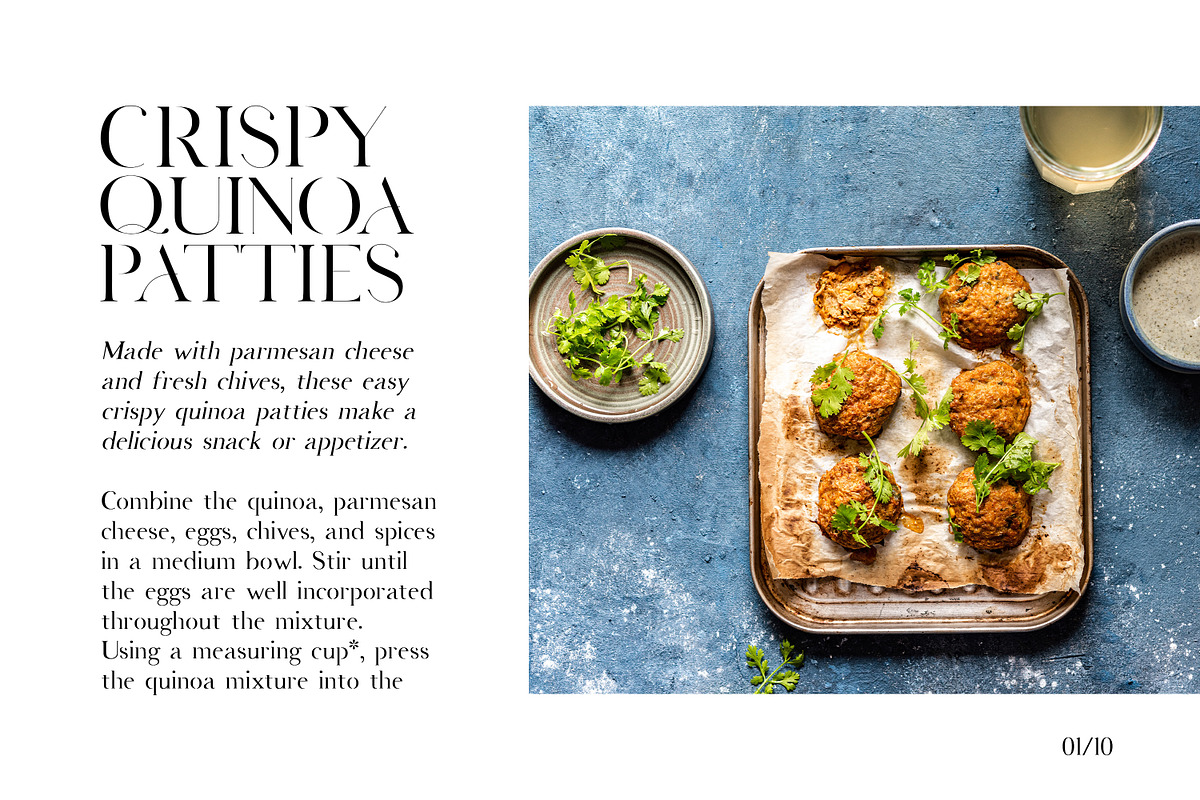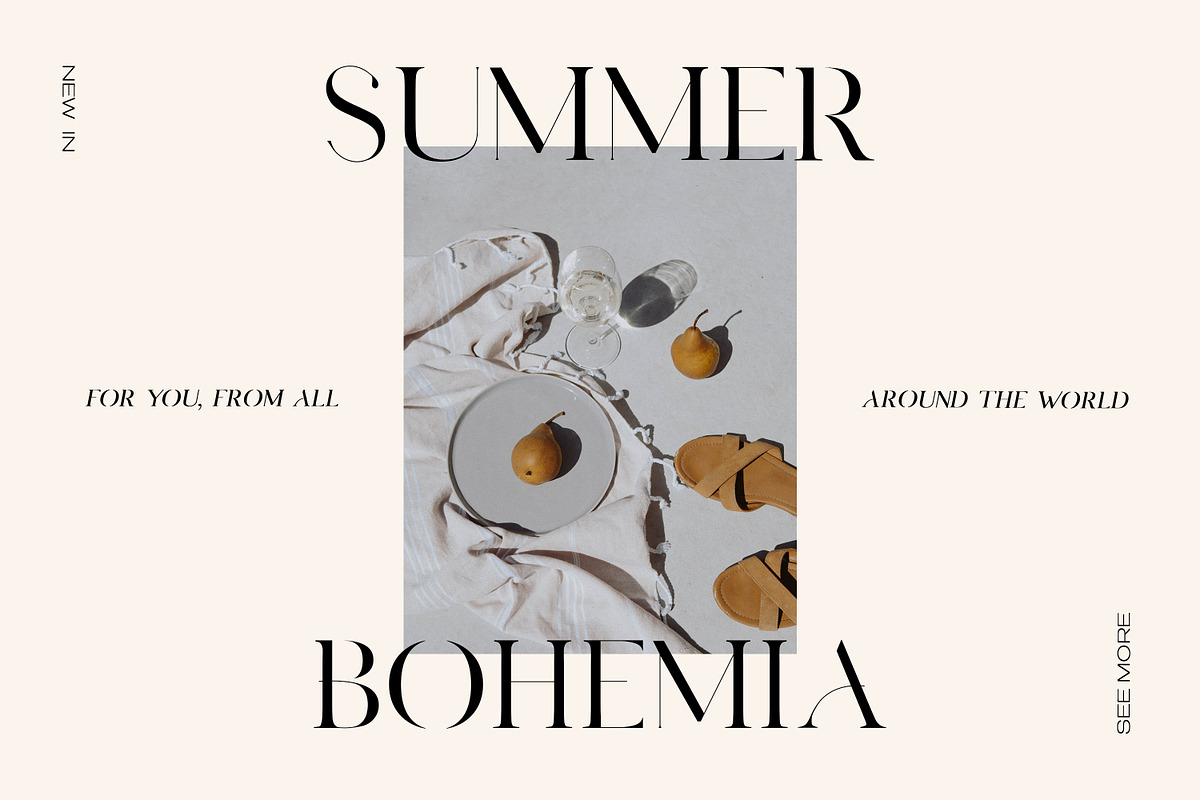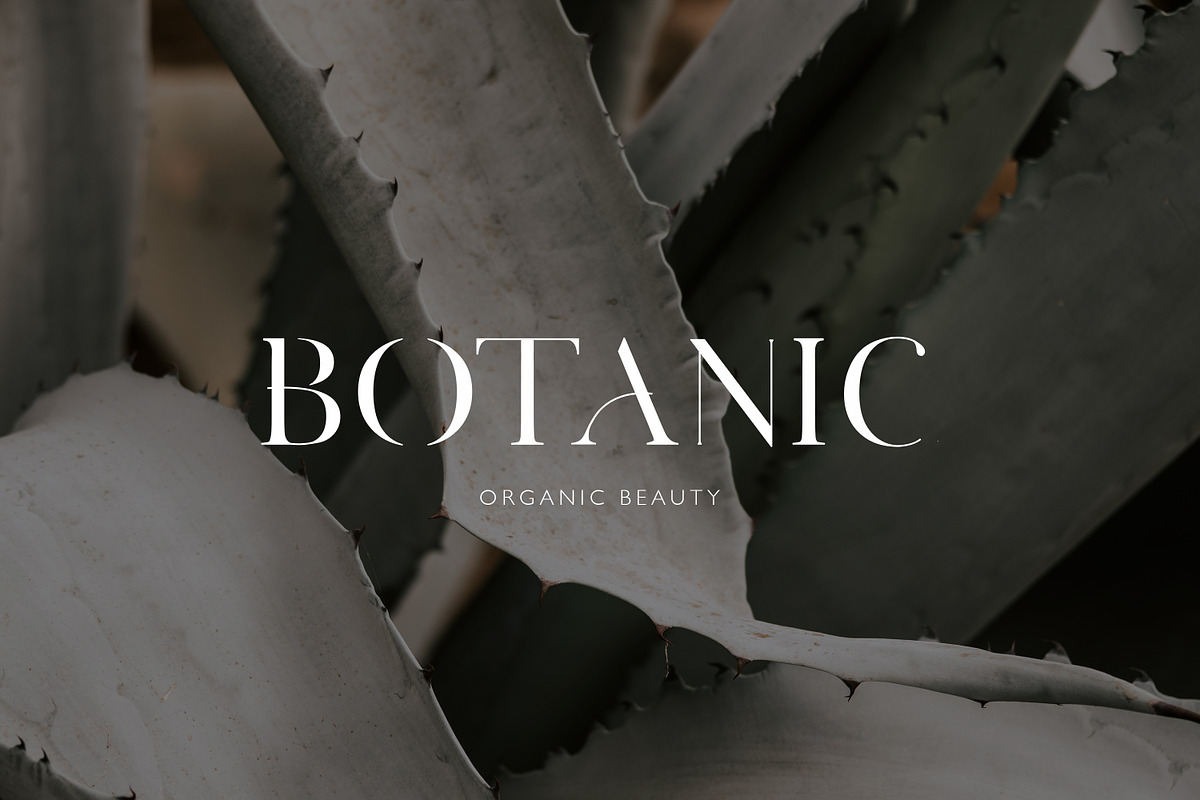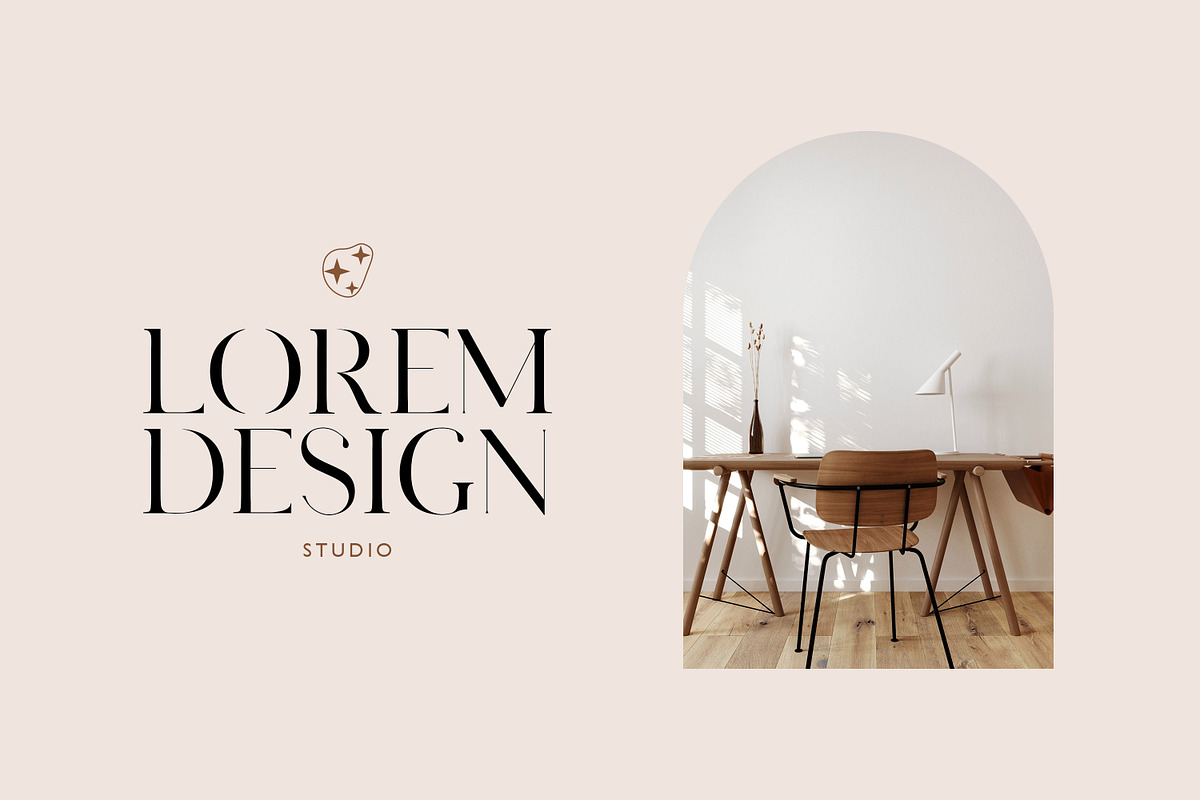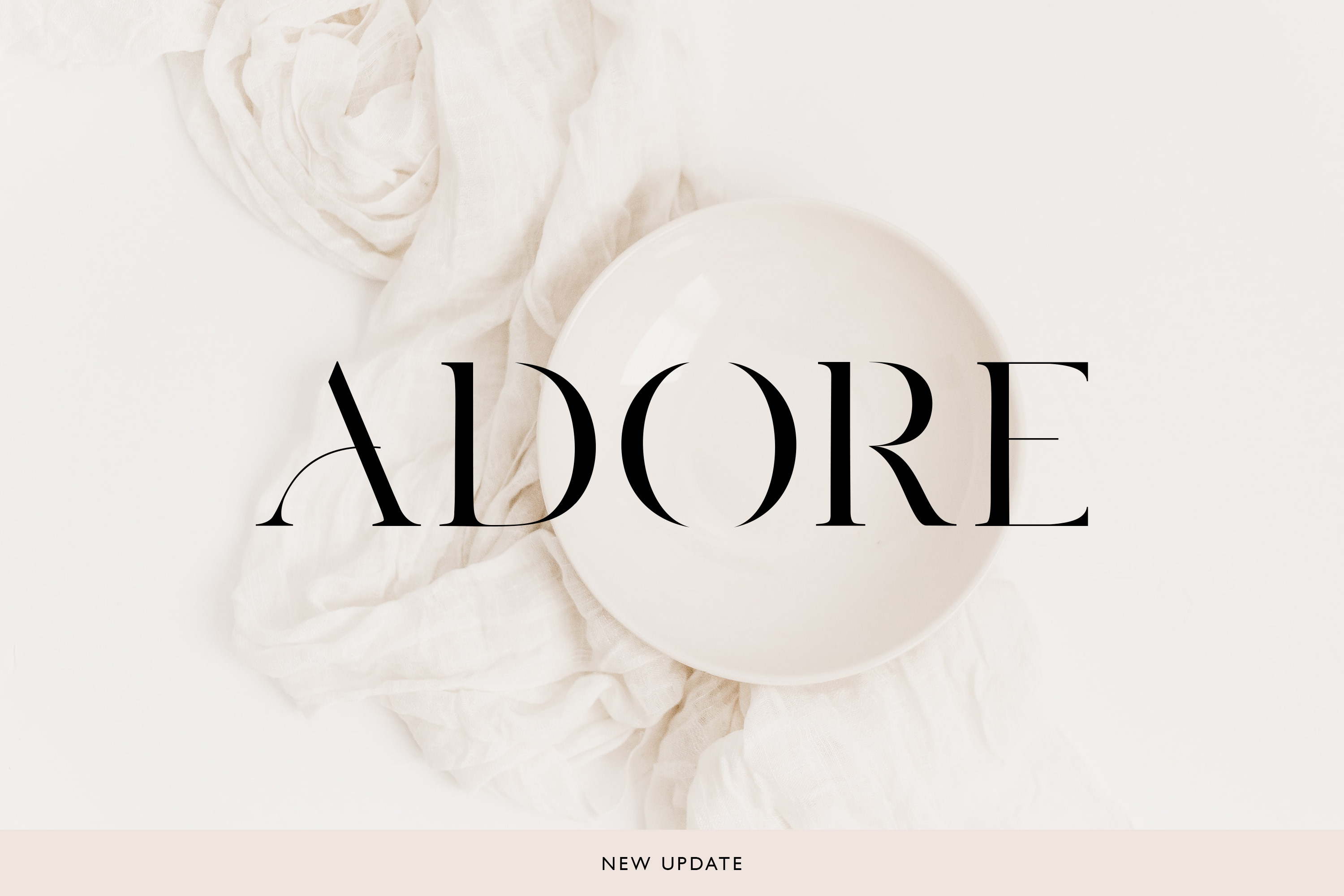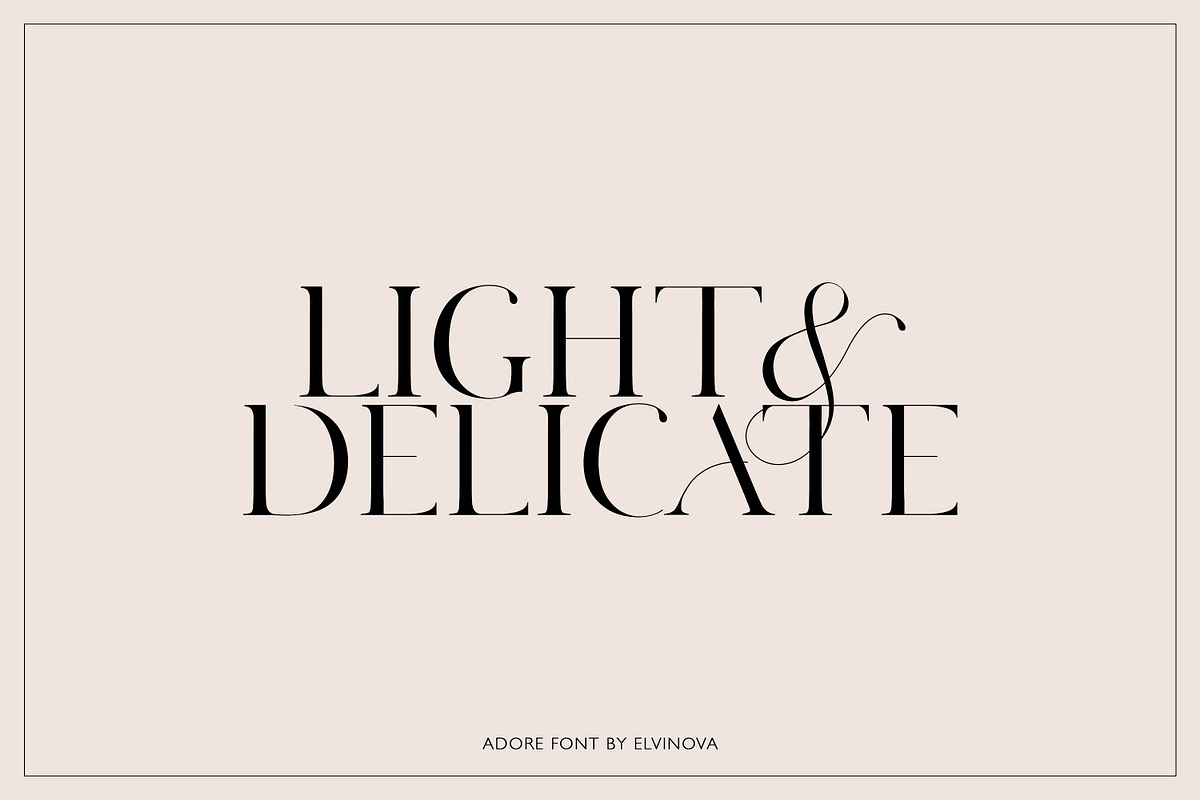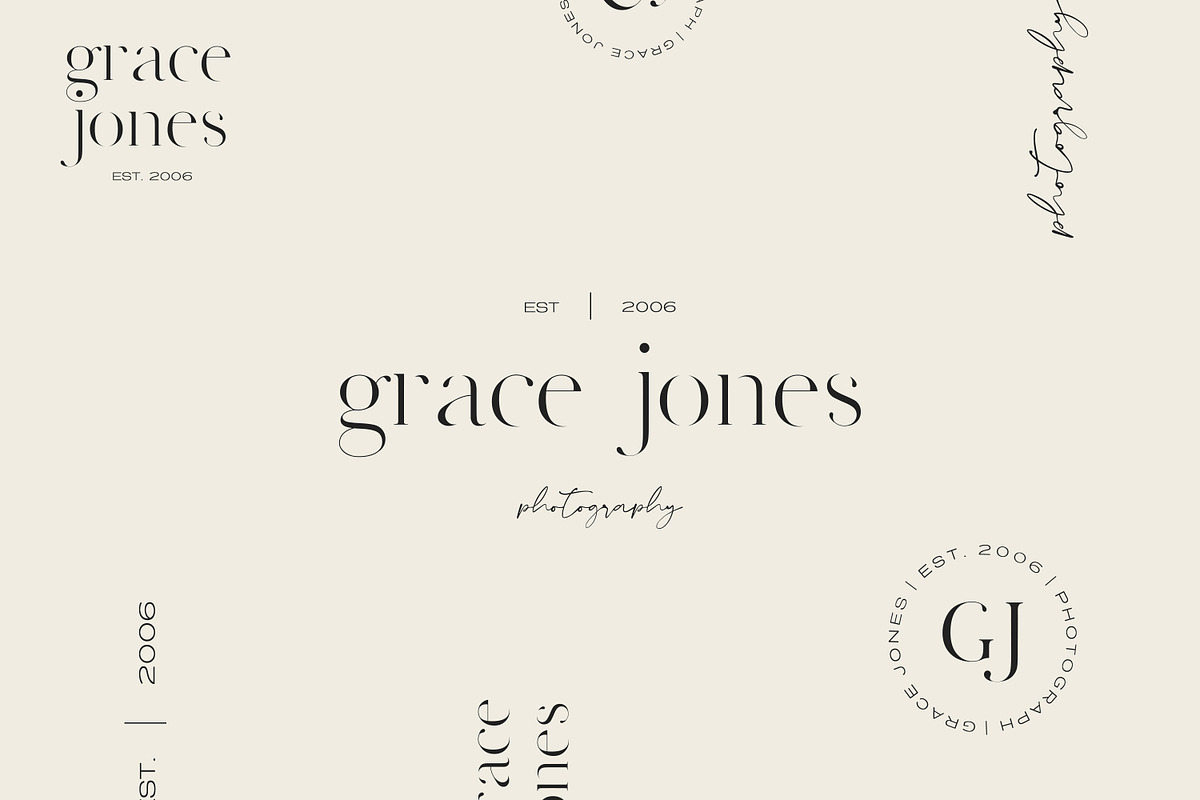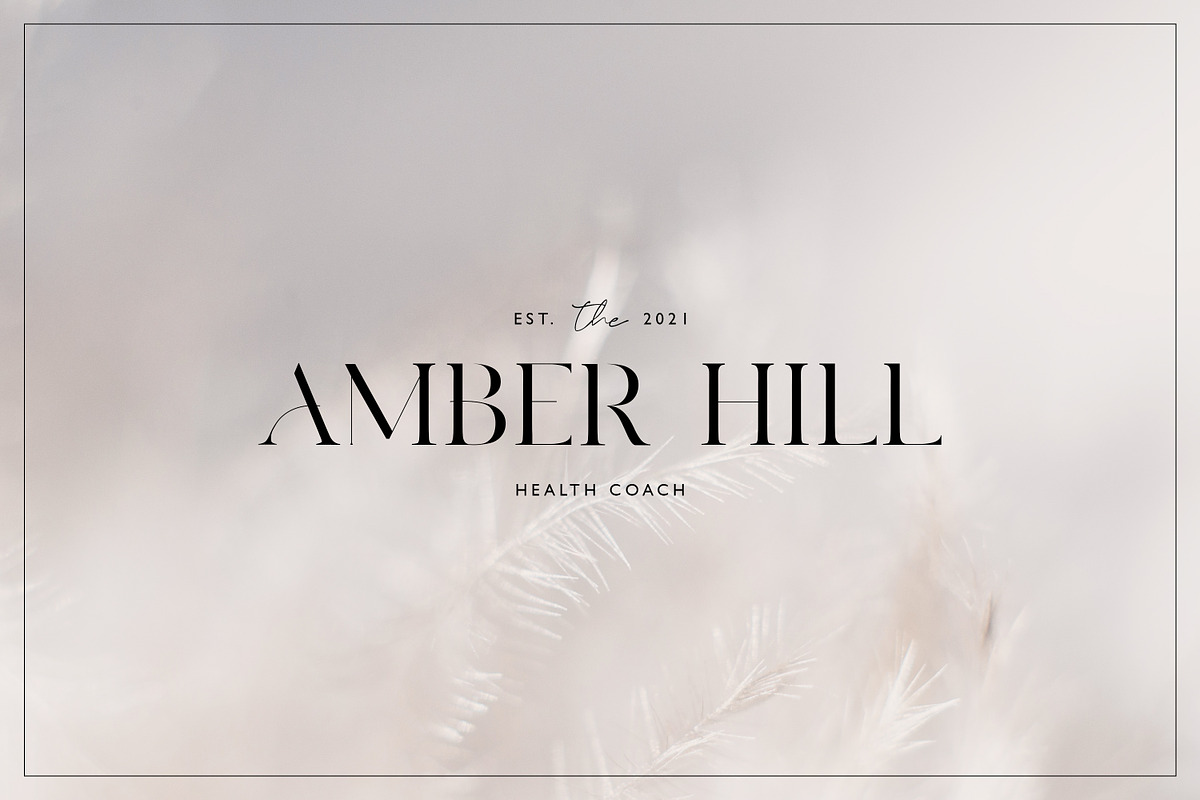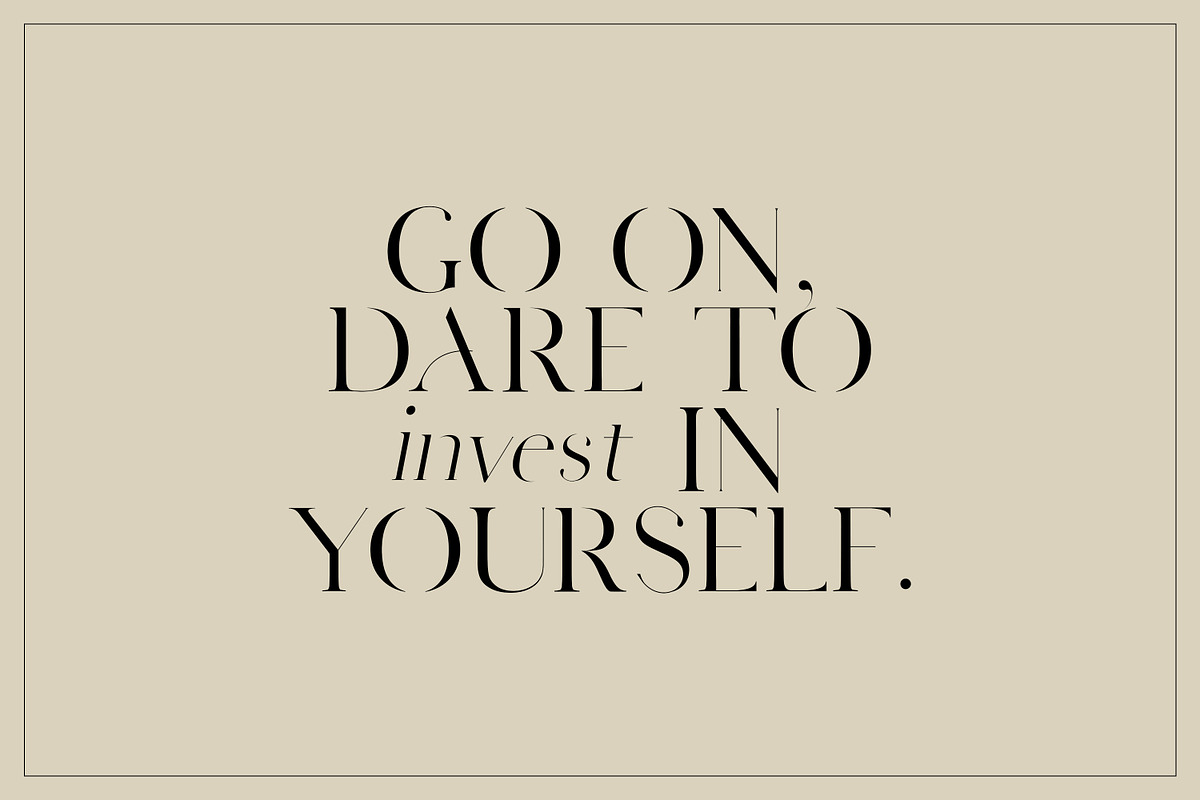
UPDATED (November 1st, 2023): I’ve redrawn all letters, fixed some issues and added new improved versions of the Adore.
Adore font is an elegant serif typeface with delicate details. This neat font can contribute to the modern and fashionable appeal of the brand.
- Upper/Lowercase, Numbers, Punctuations.
- Regular, Italic, Bold, Alternate, Condensed.
Language support: English, German, French, Spanish, Italian, Danish, Finnish, Portuguese, Swedish, Norwegian, Dutch, Indonesian, Luxembourgish, Icelandic, Cornish, Hungarian, Filipino, Romansh, Slovenian, Estonian, Turkish.
Unfortunately, the quality of the font is rather poor. The serifs are messy, the lines in the letters are not smooth, corners and unnecessary details are visible. I'm a bit upset because I wanted to use this font for the logo and now I have to correct the letters